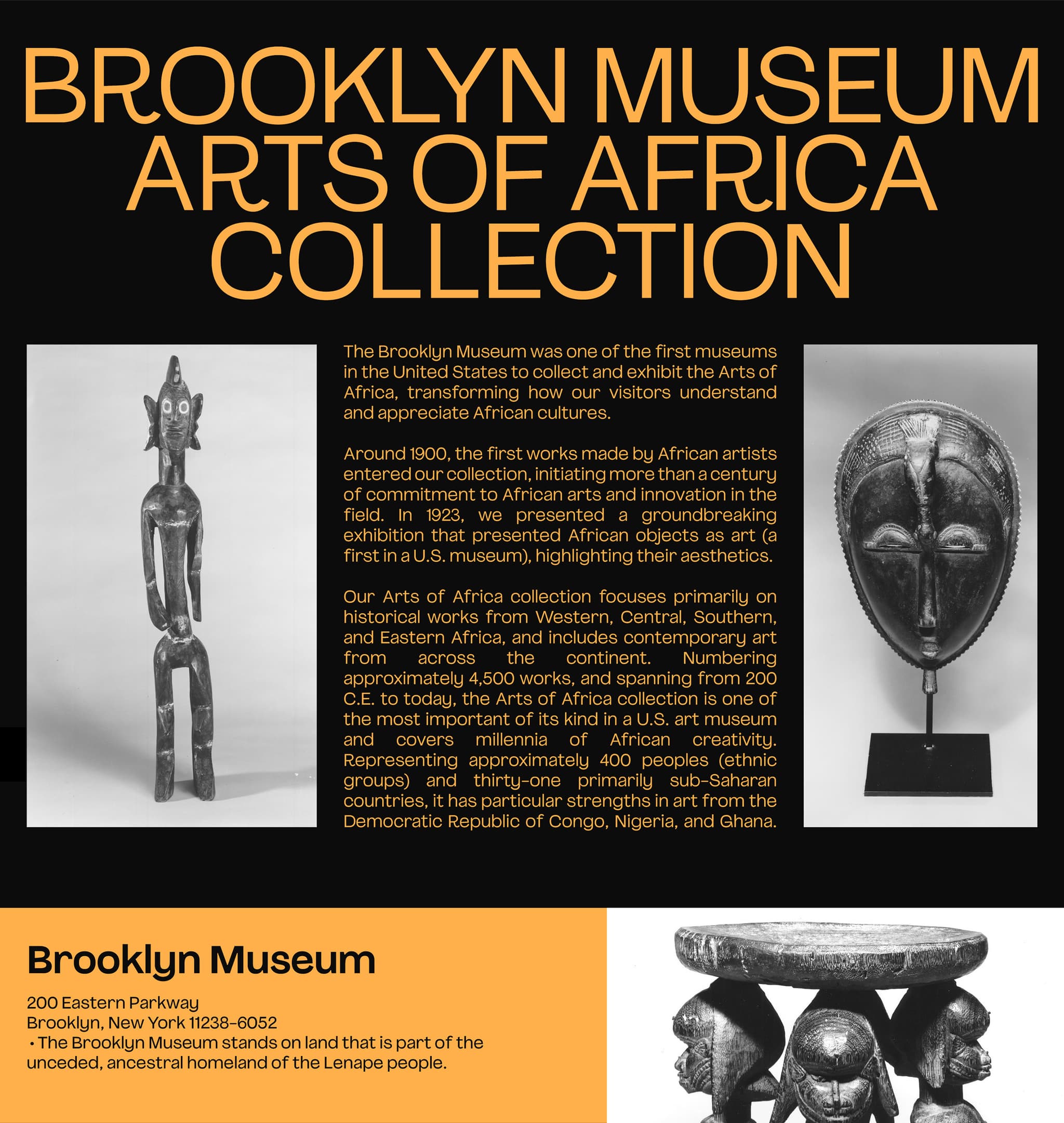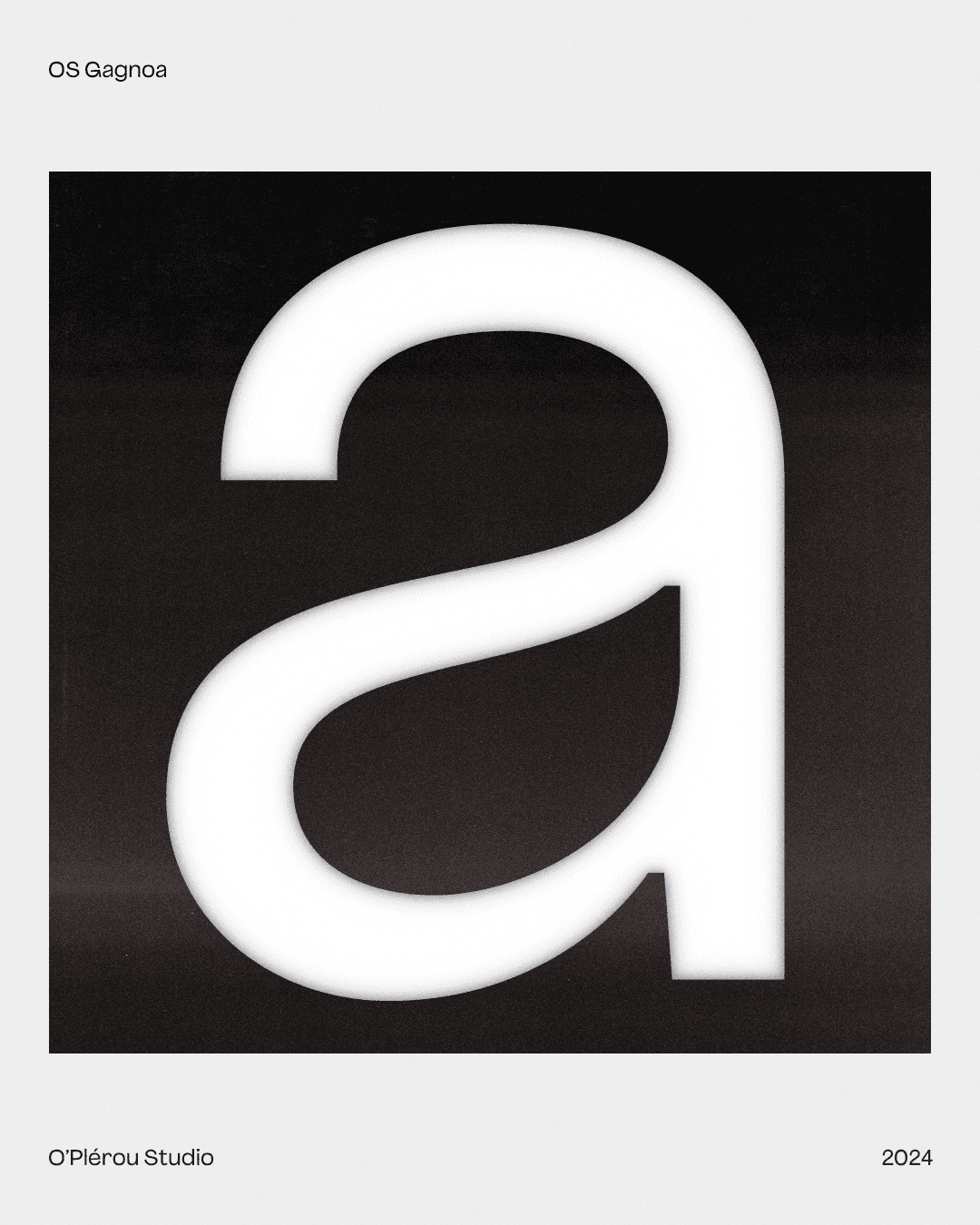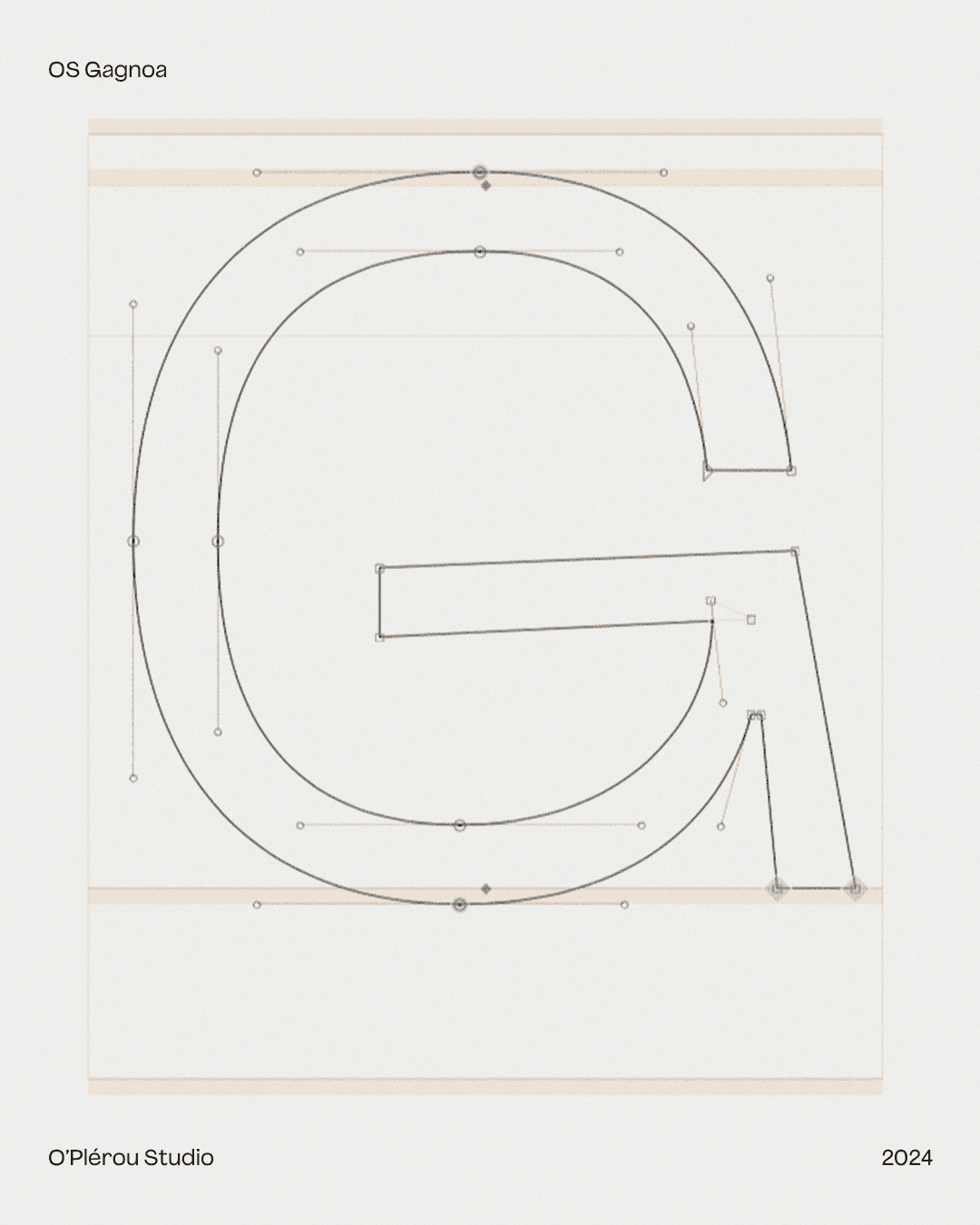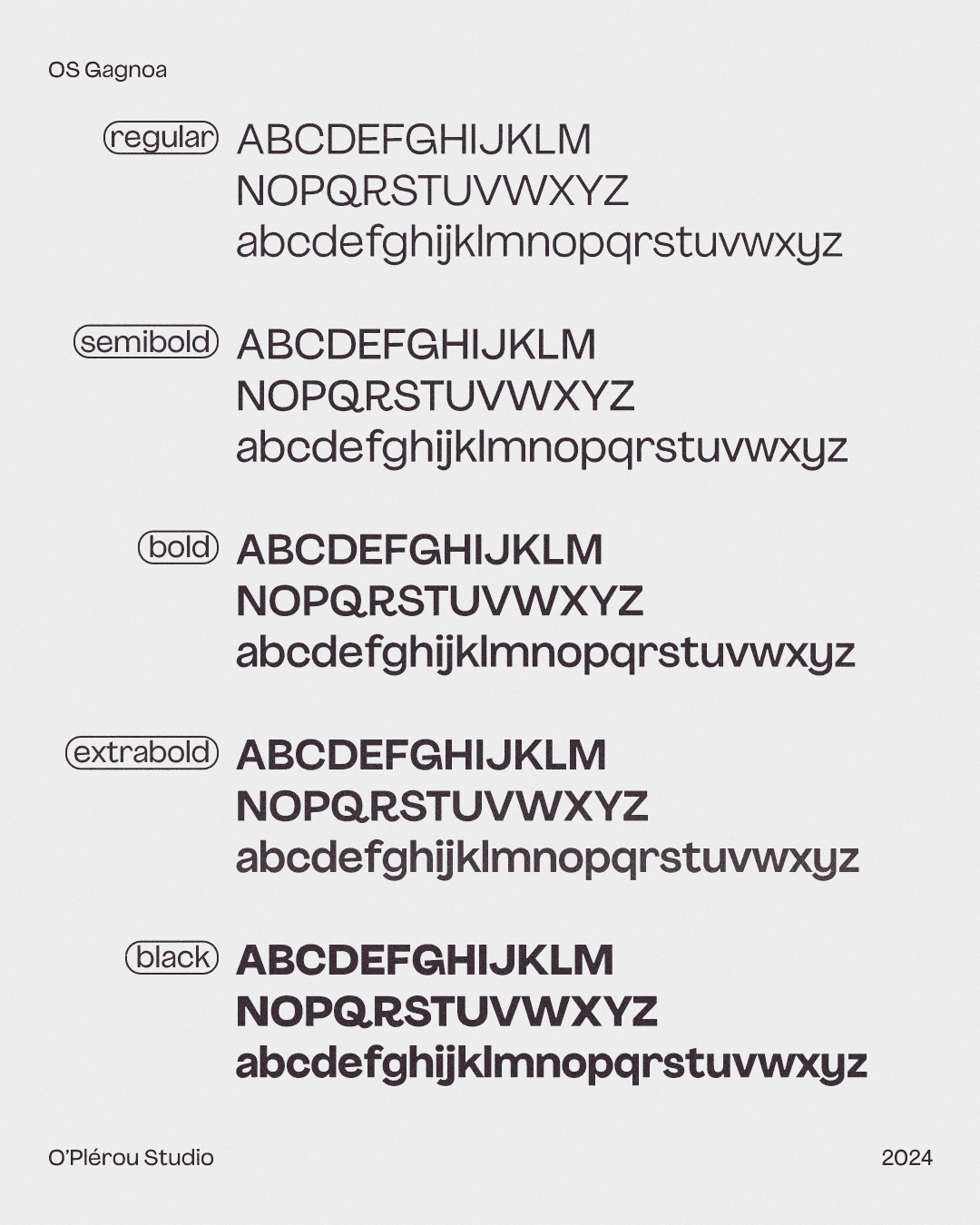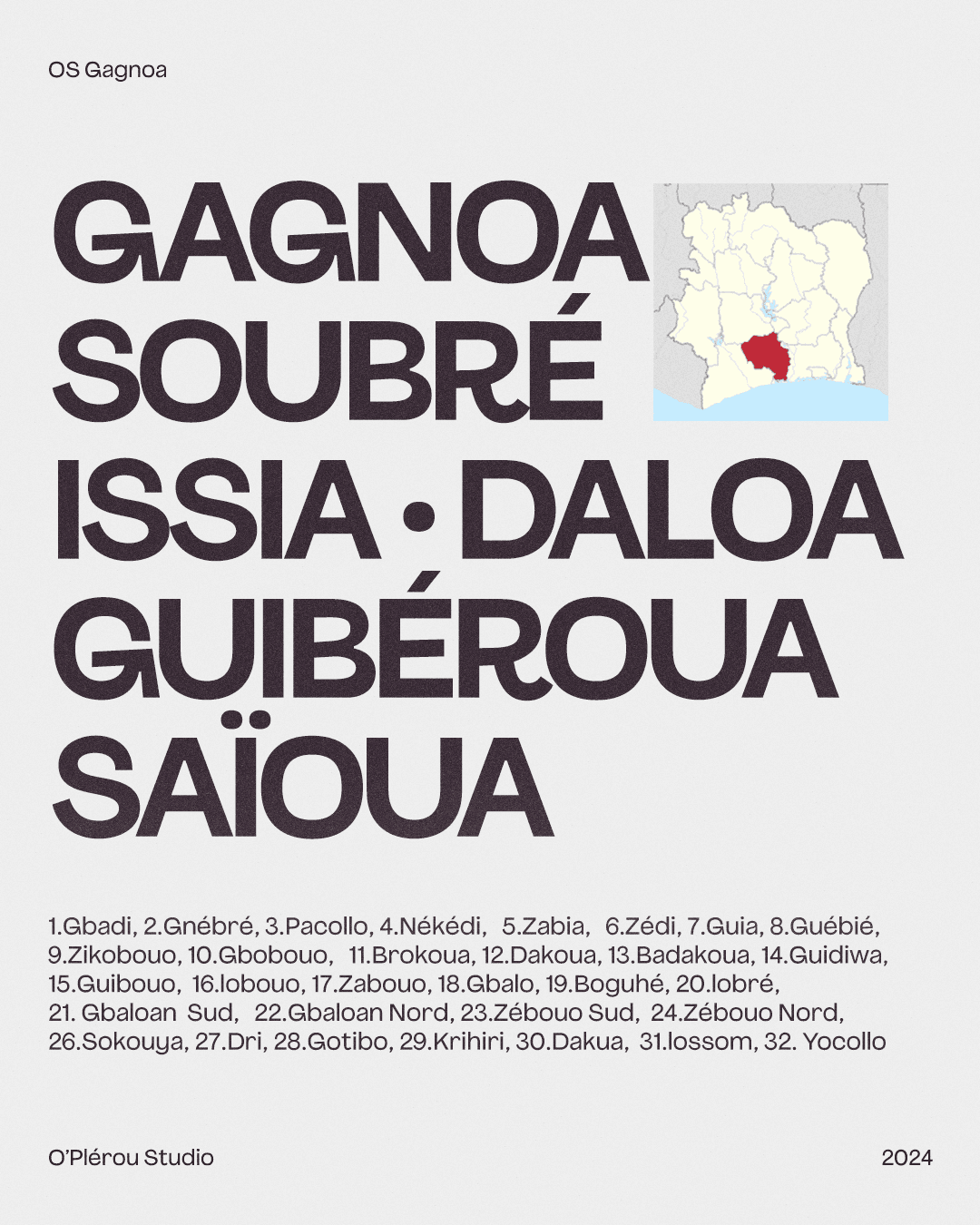
Most fonts are built to be invisible. OS Gagnoa is built to be a witness. It is the visual frequency of my own cognition: a logic that appears familiar until you look closer and realize the foundations shifted. Unaligned crossbars. Discreet ink traps. Mixed terminal angles. Not quirks, but a representation of a mind that uninstalled the autopilot. Named after Gagnoa, Côte d’Ivoire, this is the export of its frequency.
Crafted with medium and large sizes in mind, Gagnoa excels in contexts where clarity and personality are paramount. Each detail is thoughtfully designed to balance contemporary aesthetics with a touch of individuality, making it a versatile choice for both digital and print applications as headlines, logos and graphic design projects.
Named after Gagnoa, a city in the southern part of Côte d’Ivoire and the region where I am from, this typeface balances subtle (or not) idiosyncrasies with a friendly, humanistic touch while embracing modern typographic principles.